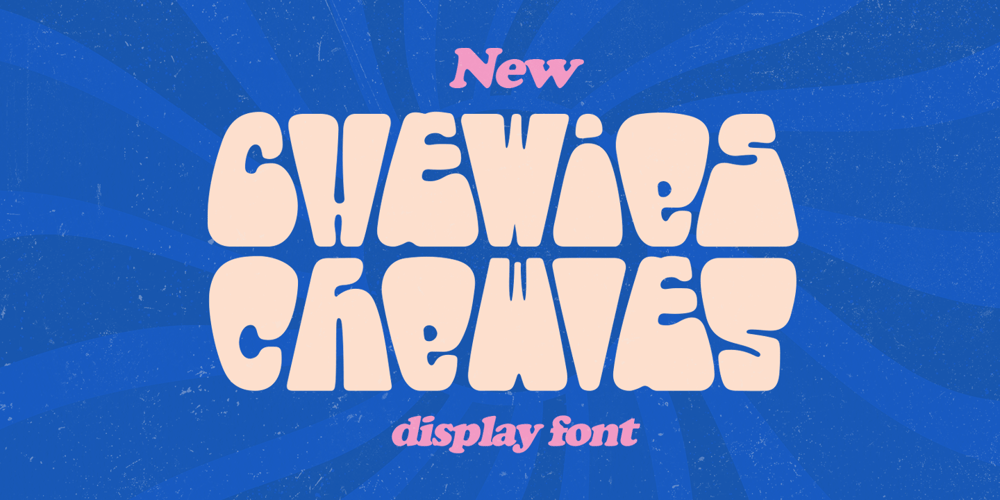
Chewies Font Family was designed by Hendry Juanda and published by Letterhend. Chewies contains 1 styles and family package options. Chewies is a quirky bold font with unique letterform. You can playaround to fit the form using uppercase and lowercase mode. This font perfectly made to be applied especially in logo, and the other various formal forms such as invitations, labels, logos, magazines, books, greeting / wedding cards, packaging, fashion, make up, stationery, novels, labels or any type of advertising purpose.Features : uppercase & lowercase numbers and punctuation multilingual PUA encoded We highly recommend using a program that supports OpenType features and Glyphs panels like many of Adobe apps and Corel Draw, so you can see and access all Glyph variations.